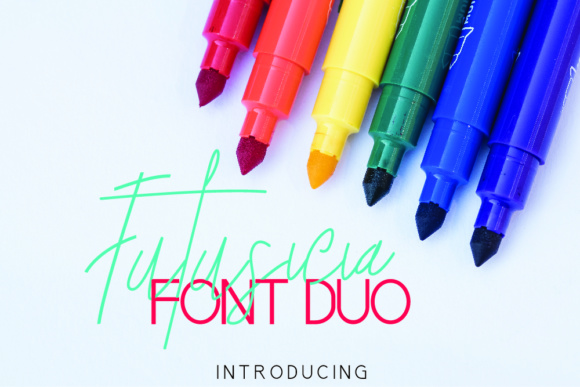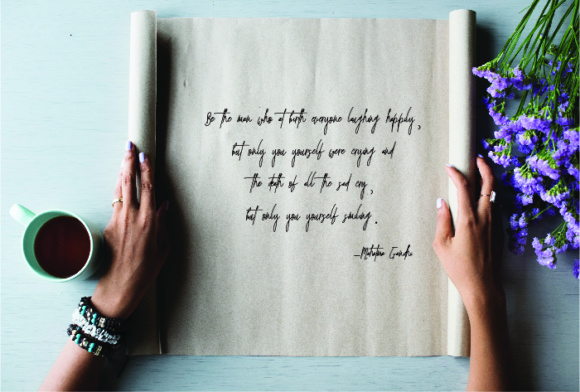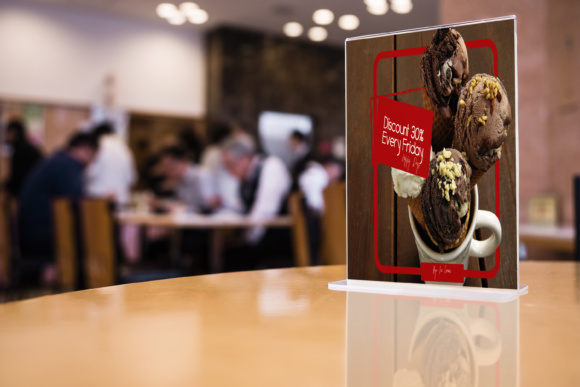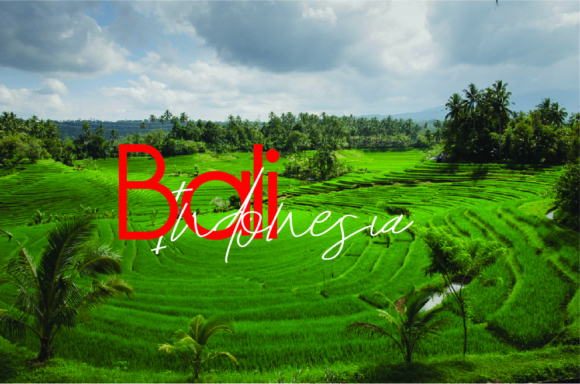
Futusicia Duo Font
About Futusicia Duo Font
The Futusicia Duo is a stunning font duo combining Futusicia Script, a stunning handwritten script and Futusicia Sans Serif, a perfectly matching Sans Serif.